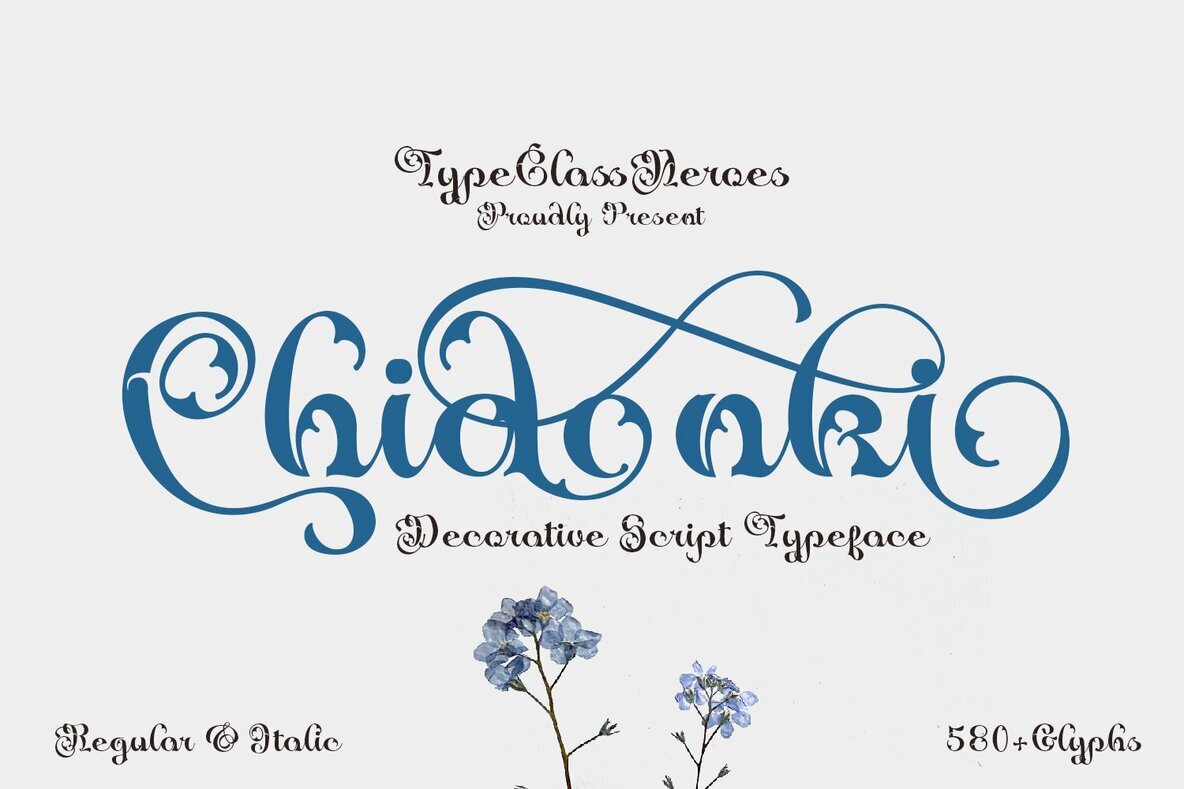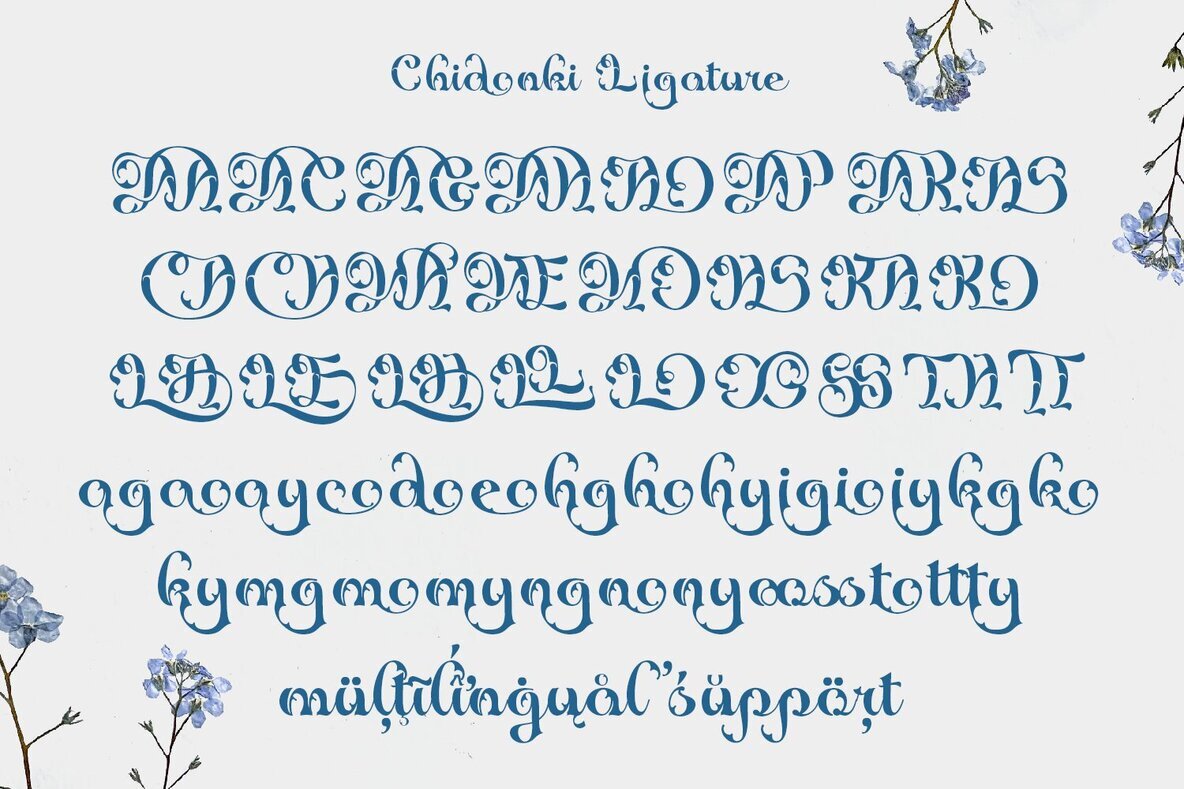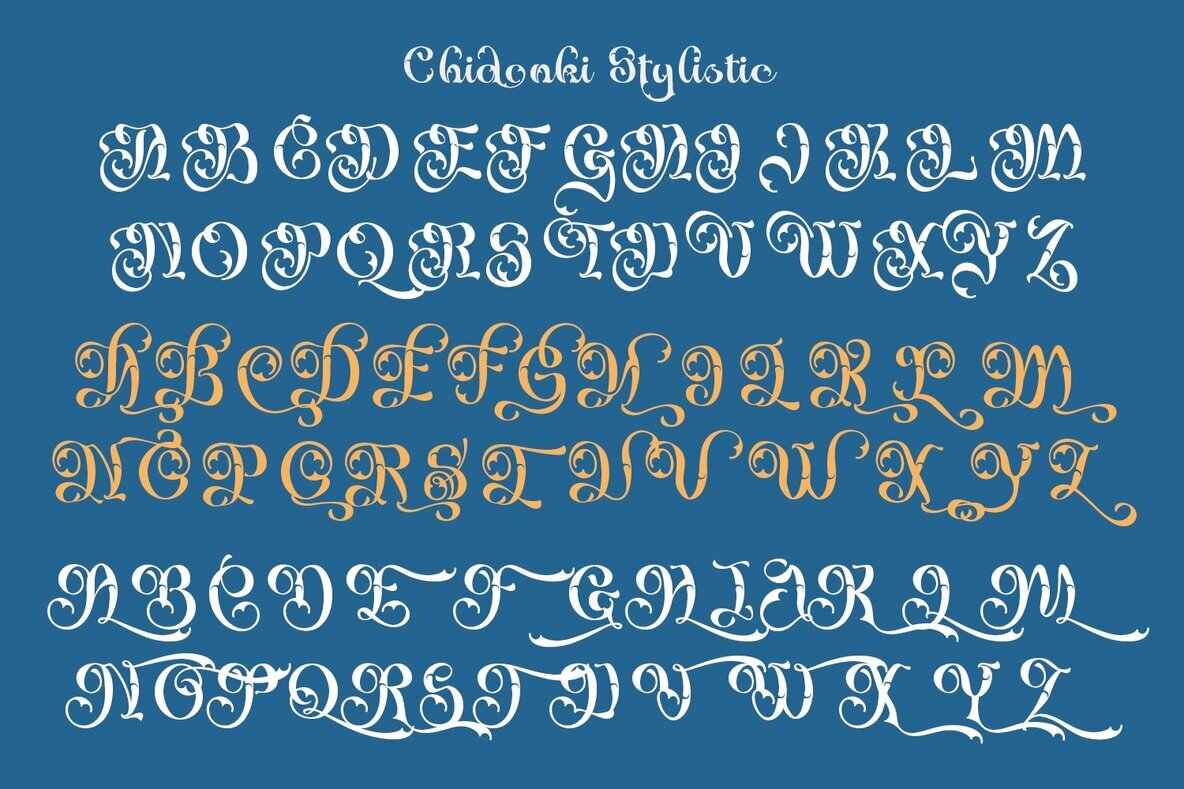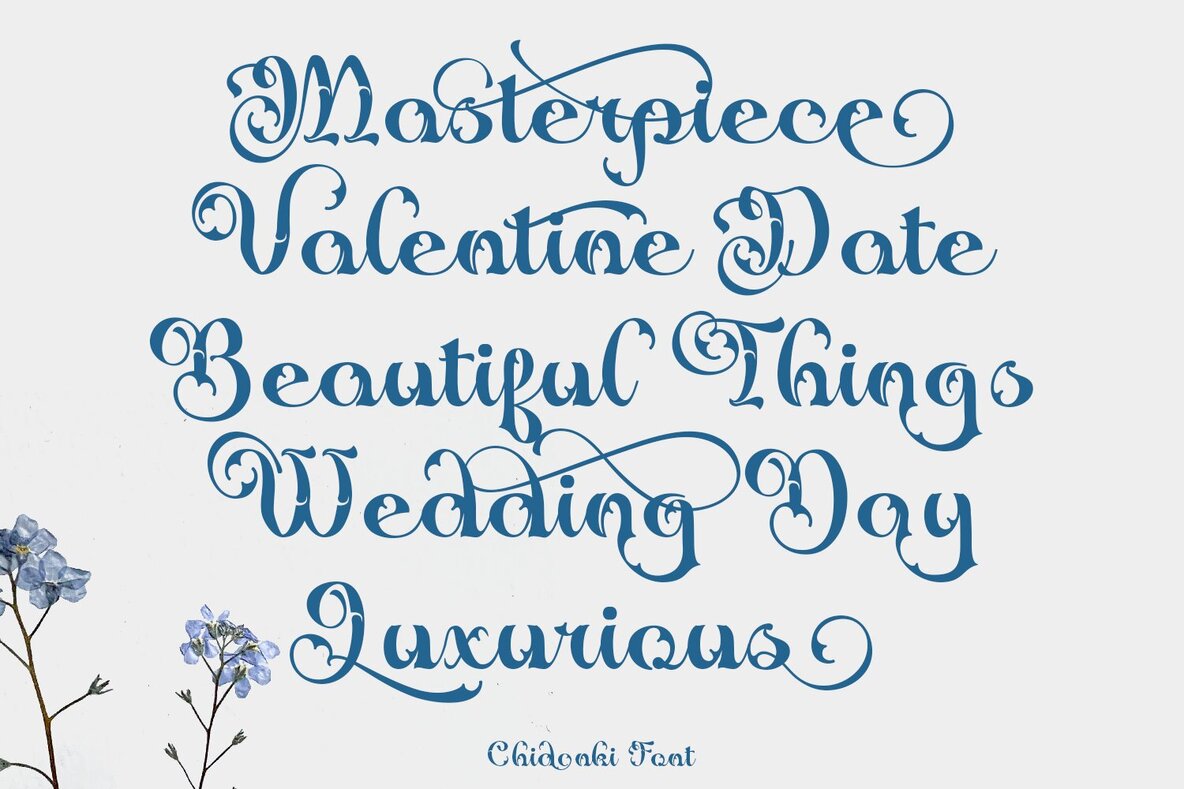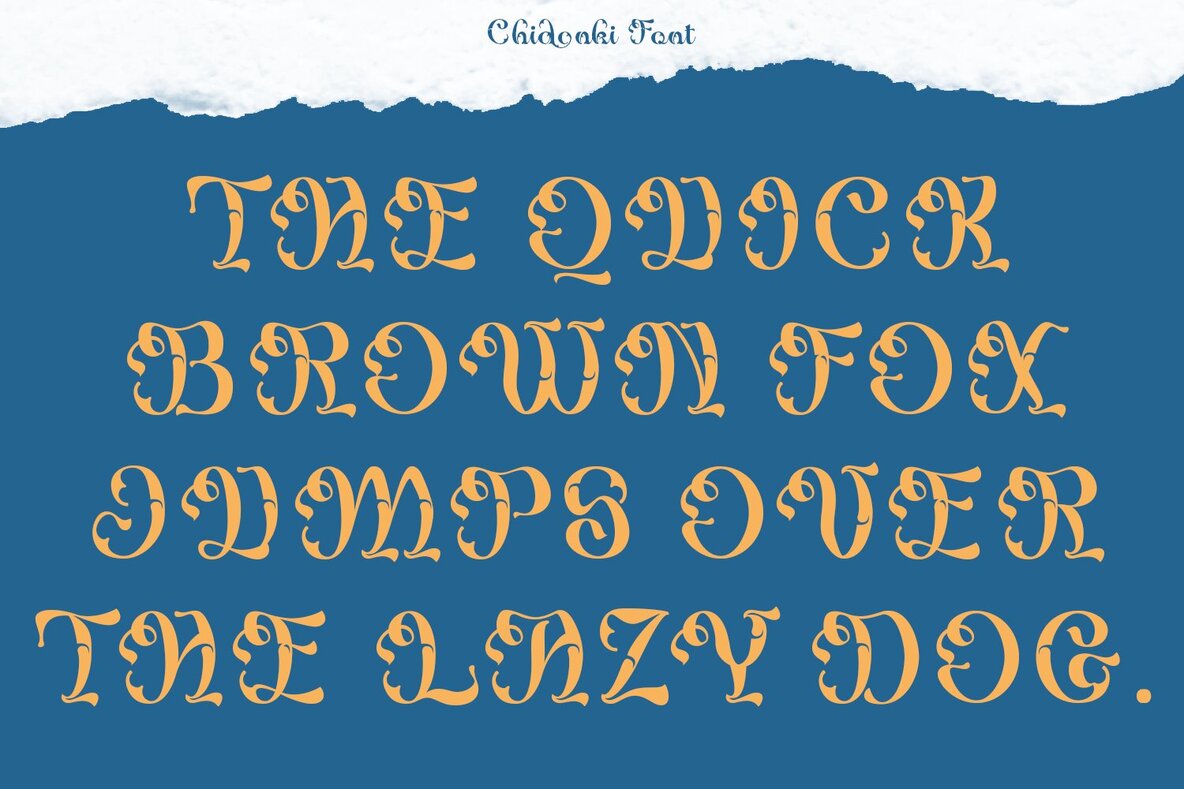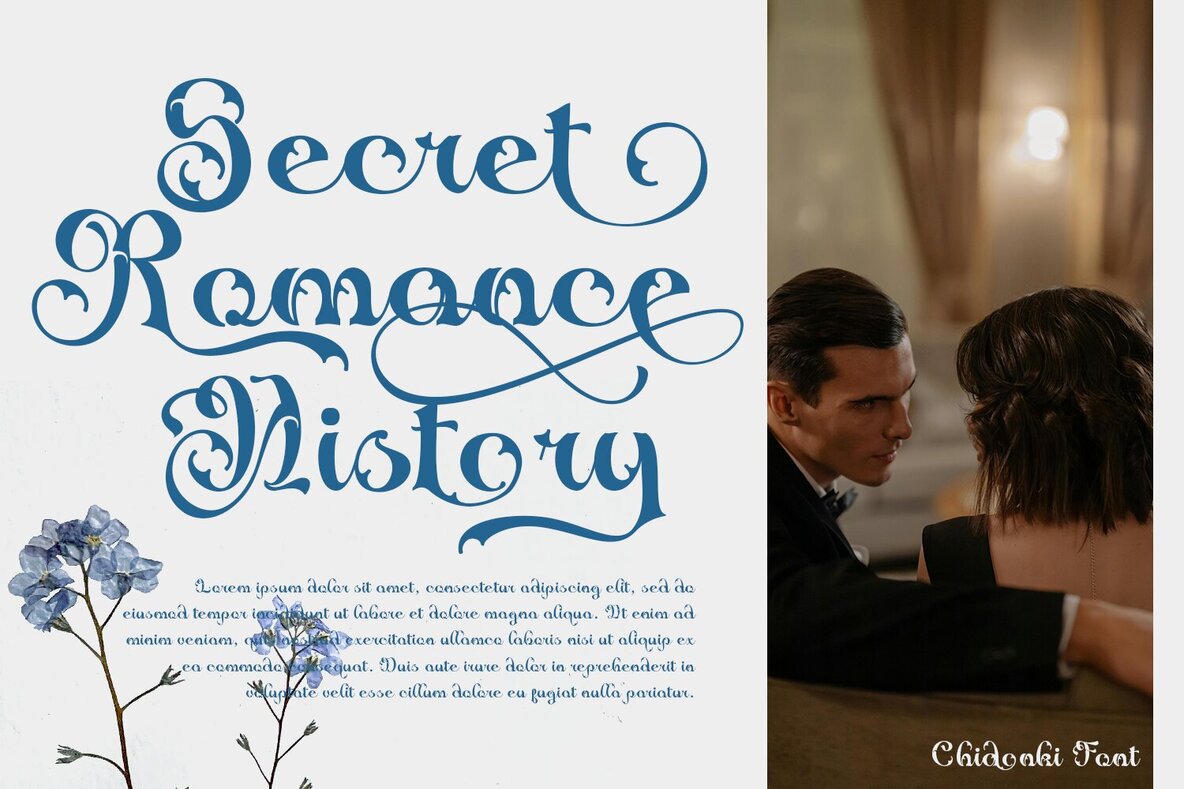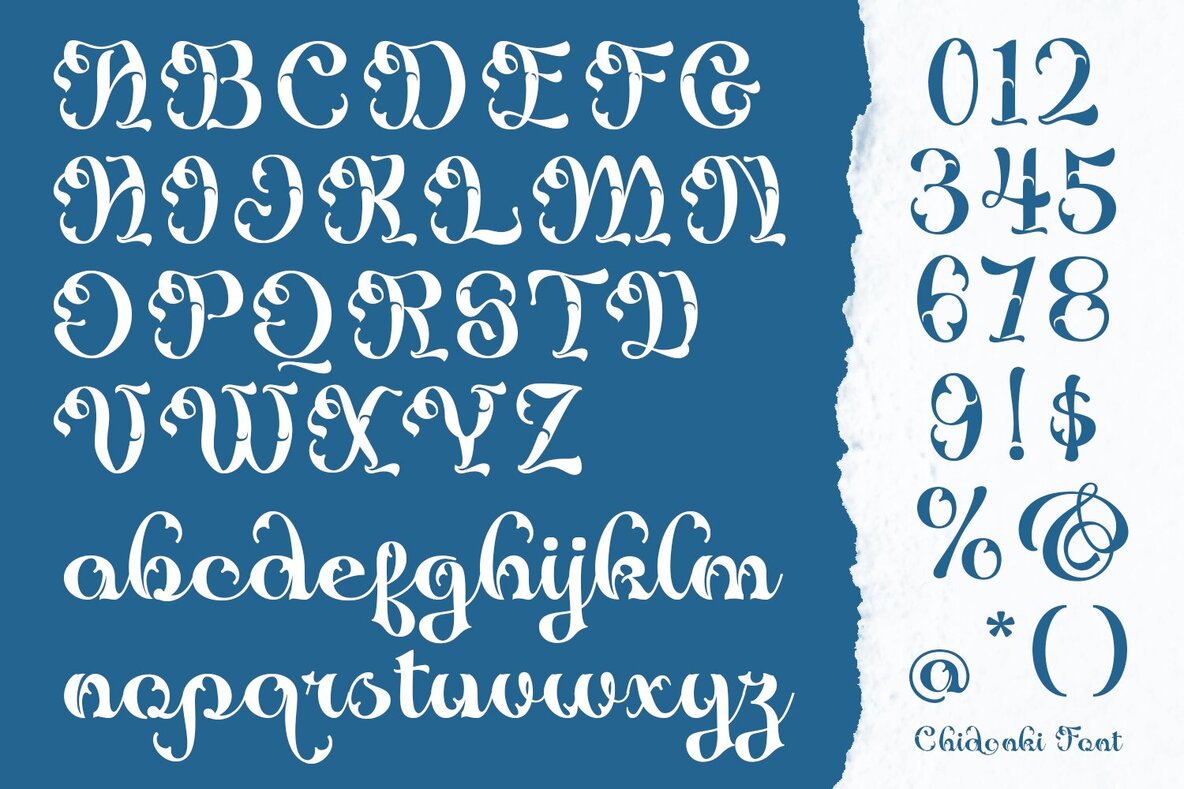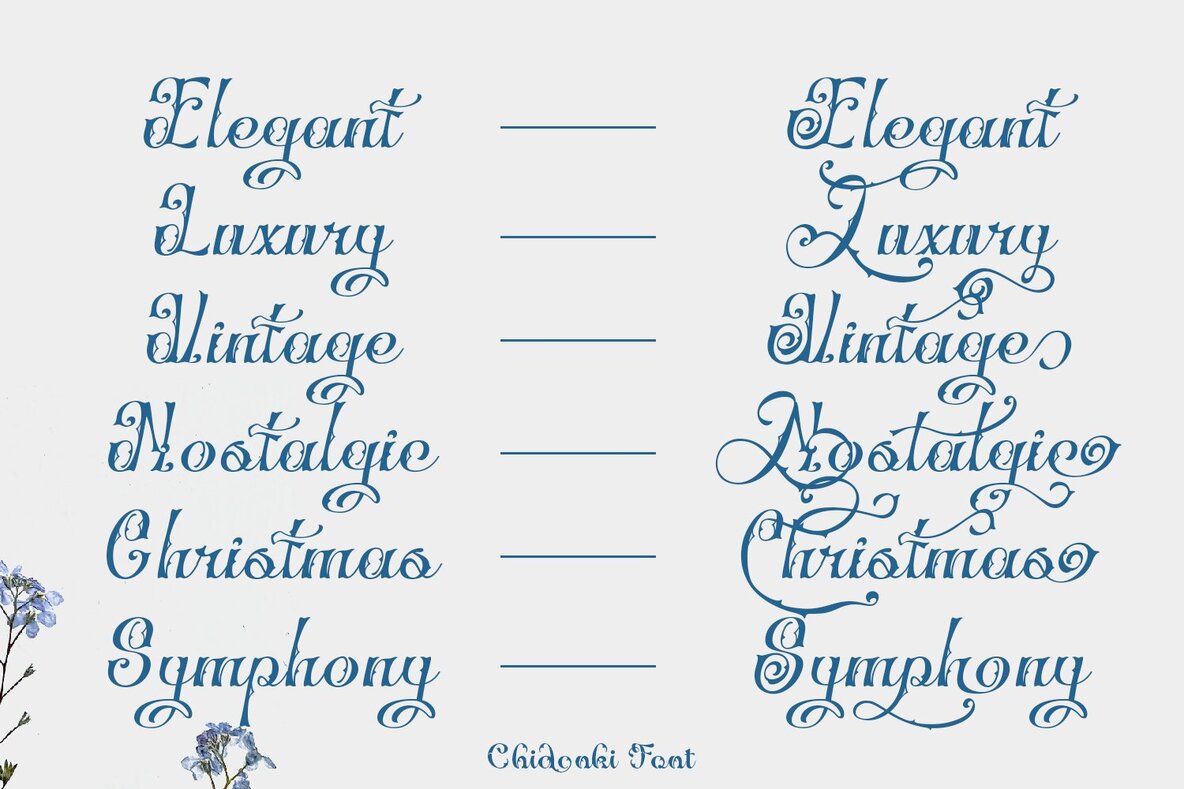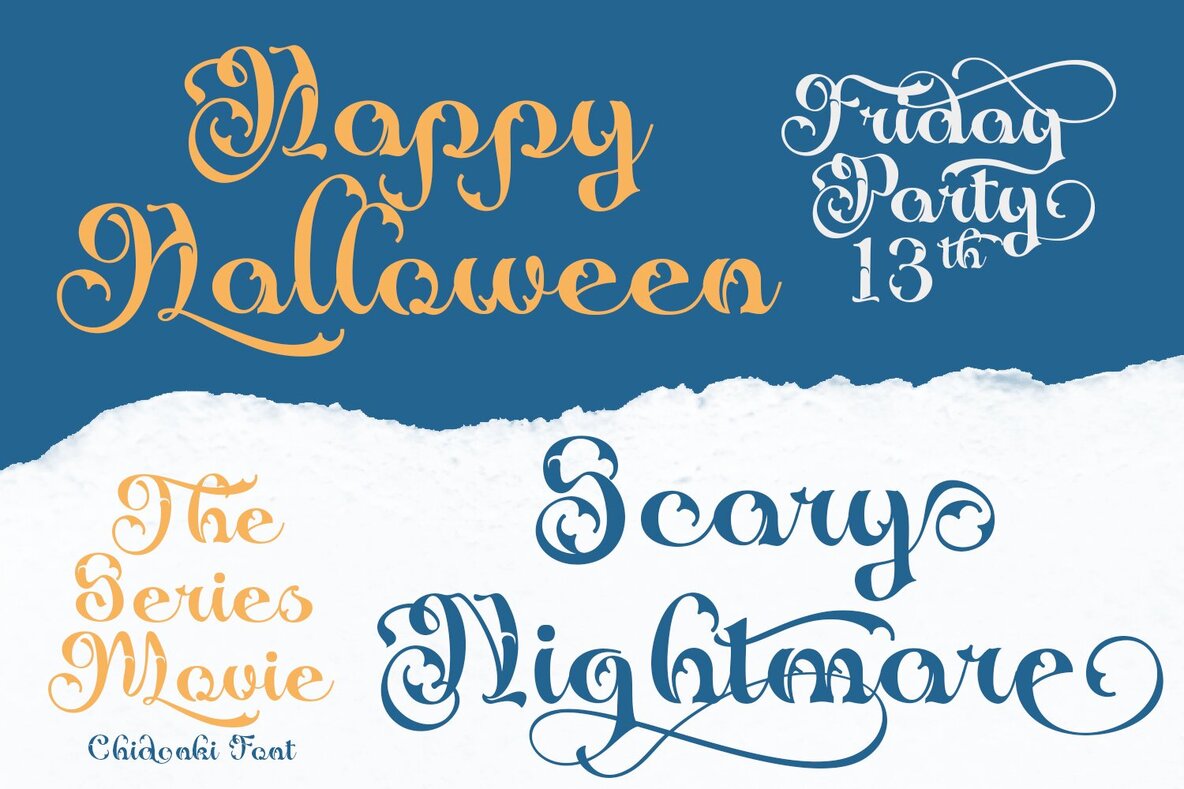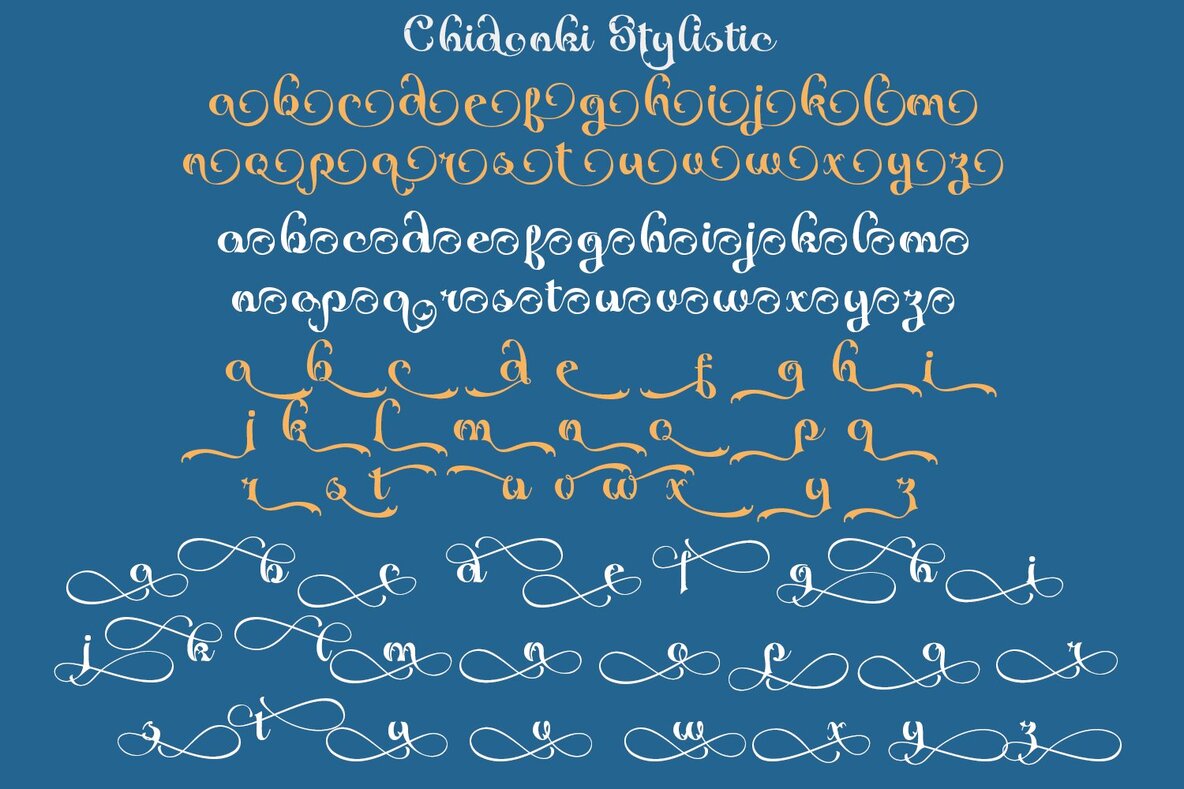
Chidonki Font
Chidonki is a captivating decorative script font that seamlessly combines elegance with a unique boldness, all while maintaining a touch of classic charm. Each glyph has been meticulously crafted to ensure readability and aesthetic appeal, making it perfect for creating visually stunning designs. Whether you're designing a vintage logo, packaging, book cover, or wedding invitation, Chidonki adds an unmistakable touch of sophistication and timelessness.Chidonki: A Decorative Script Masterpiece
Perfect Applications